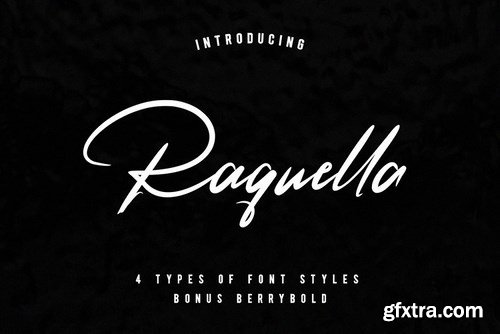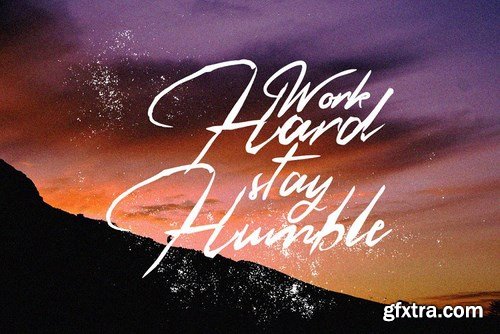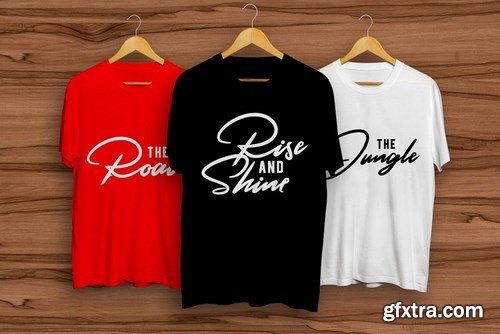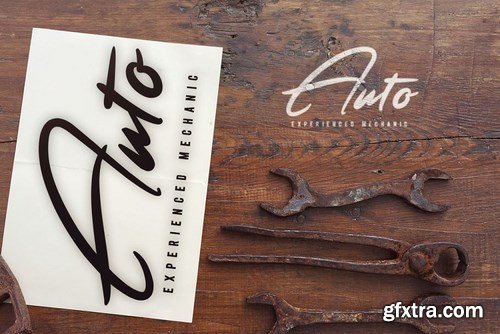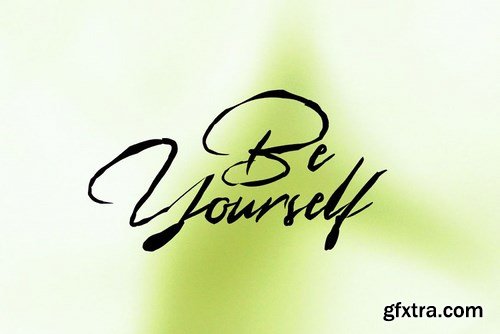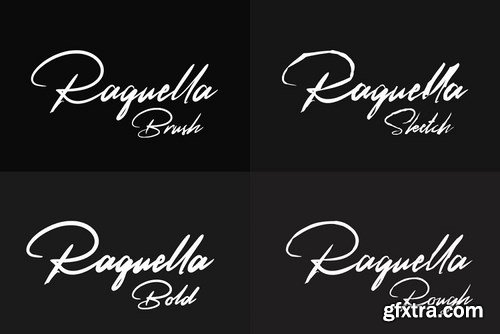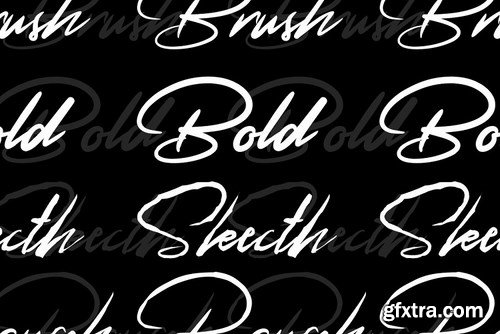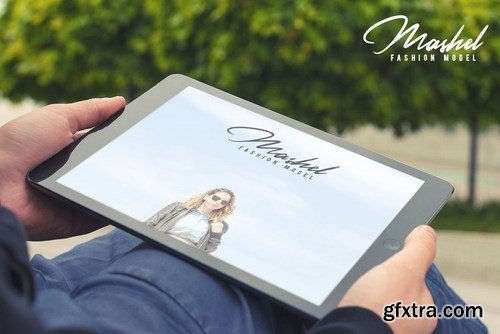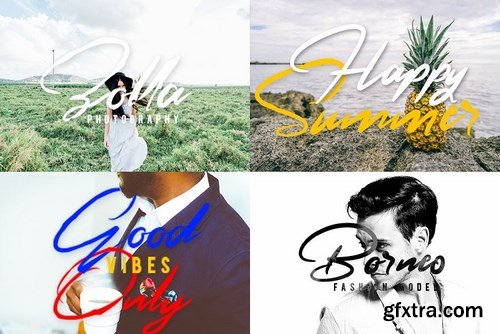
Hello world..!! this is Raquella Script, simple and easy to create awesome lettering, just type your words and then you will immediately see the great results.
Raquella Script features: Uppercase & lowercase Stylistic alternatives & swashes Ligatures Initials & finals International characters (Multilingual) Punctuation & symbols If you don't have a program that supports OpenType features such as Adobe Photoshop or Illustrator, you can access all the alternate glyphs using Font Book (Mac) or Character Map (Windows). Raquella Bold Raquella Brush Raquella Sketch Raquella Rough OTF, TTF, WEB FONT, WOFF files are included.